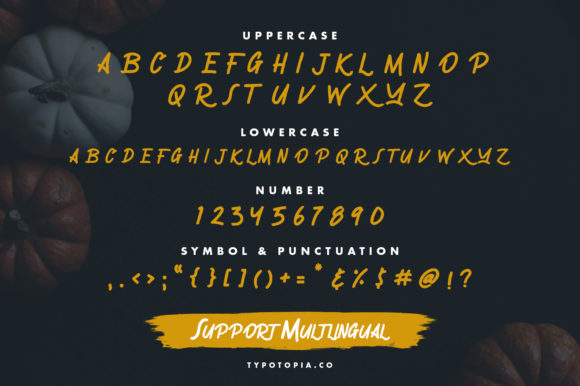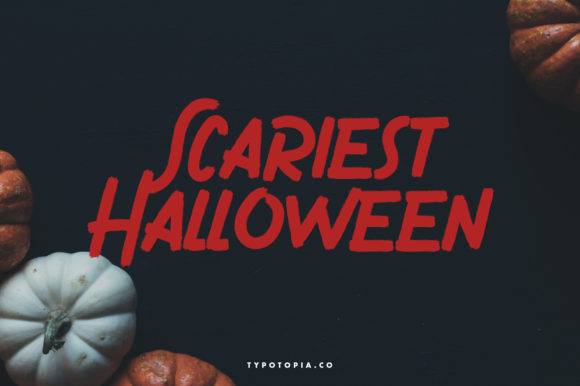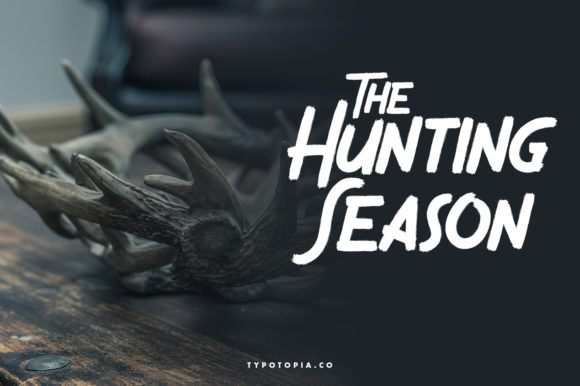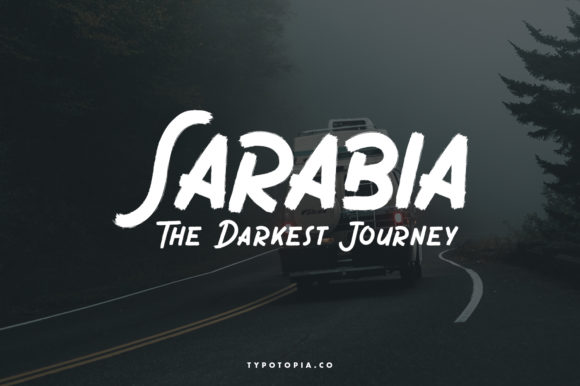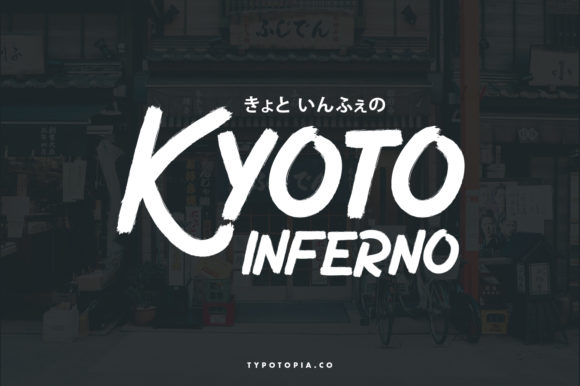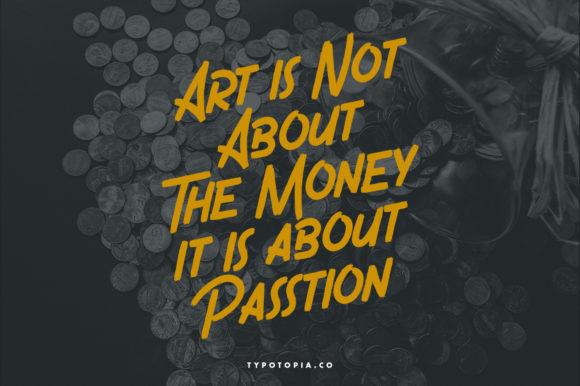
Introduction to Gronzy Font
Have you ever stared at a blank canvas, waiting for the perfect spark to ignite your creativity? That’s exactly where I was when I stumbled upon the Gronzy Font – and it changed everything. Its bold, authentic style instantly transported me to a world of endless possibilities. As a designer, I can confidently say that Gronzy Font is a game-changer, and I’m excited to share its magic with you.
Whether you’re working on a high-quality design project or simply looking for a free download to elevate your creative ideas, Gronzy Font is an invaluable resource. With its transparent background and versatile design, it seamlessly integrates into any project, sending out a positive vibe that’s impossible to ignore. And the best part? It’s available for free, making it an absolute must-have for any designer looking to take their creative project to the next level.
Key Features of Gronzy Font
- Comes with a transparent background, allowing for seamless integration with various backgrounds
- Includes a comprehensive character set, covering a wide range of languages
- Designed with a unique, modern aesthetic, perfect for adding a touch of sophistication to any creative project
Honest Review: Gronzy Font
I recently had the chance to play around with the Gronzy Font, a free download from a popular design resource website. Overall, I’m quite impressed with its high quality and versatility.
- ✨ The font’s unique, quirky design is perfect for adding a touch of personality to creative projects.
- ✨ The transparent background makes it easy to use as a standalone element or layer it over other design elements.
- ✨ The font is incredibly easy to read, even at small font sizes.
- ⚠️ The font’s bold, playful style may not be suitable for more formal or professional design projects.
- ⚠️ There are limited font styles and weights available, which may limit its use in certain creative projects.
Overall, I’m very happy with the Gronzy Font and would recommend it to designers looking for a high-quality, free design resource. With a little creativity, it can be used in a wide range of design projects.
Some tips for getting the most out of the Gronzy Font include experimenting with different font sizes and styles, combining the font with other design elements, and using the font in creative ways to add visual interest to your designs. Common use cases for the Gronzy Font include graphic design, logo creation, and branding materials.